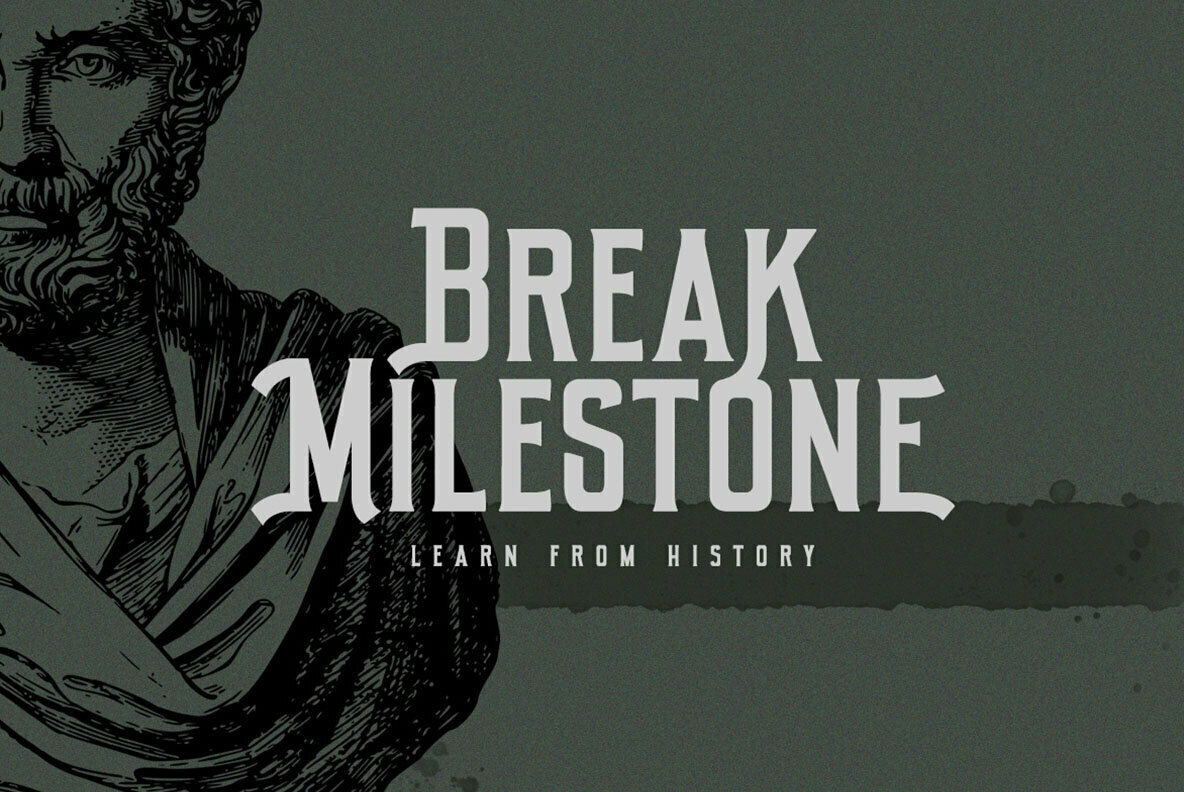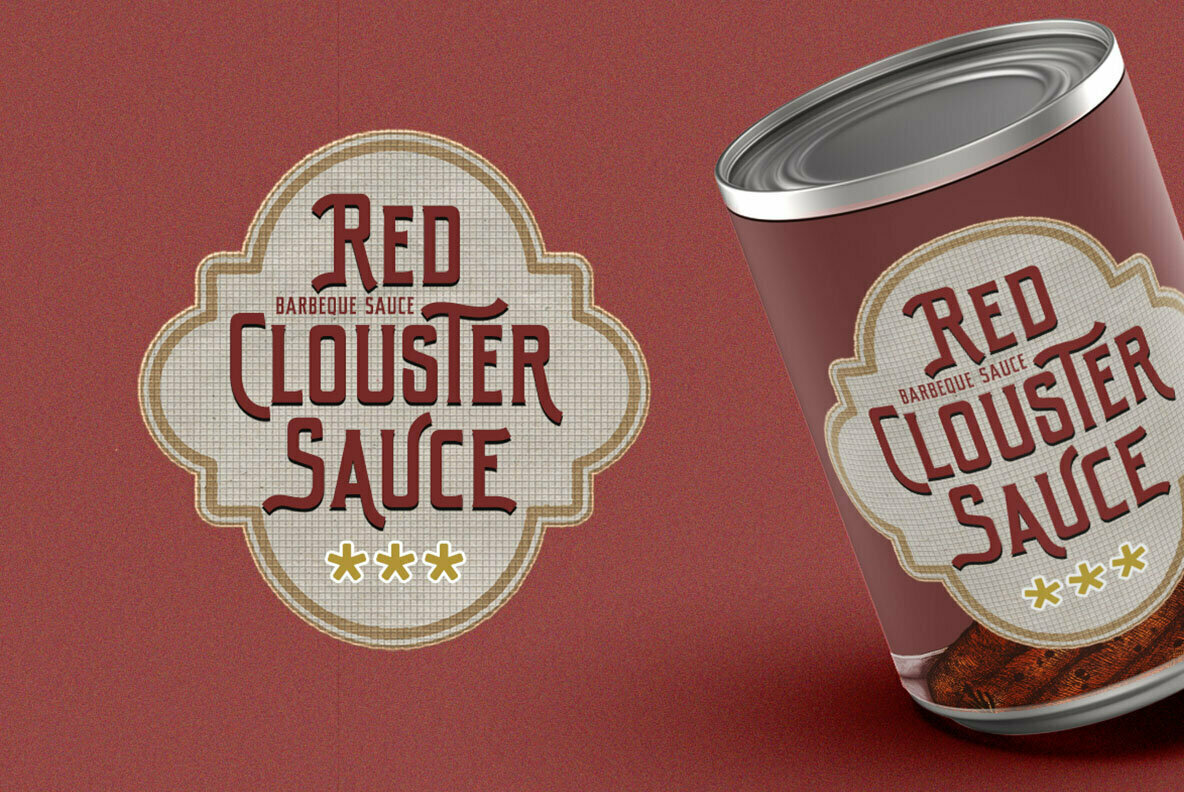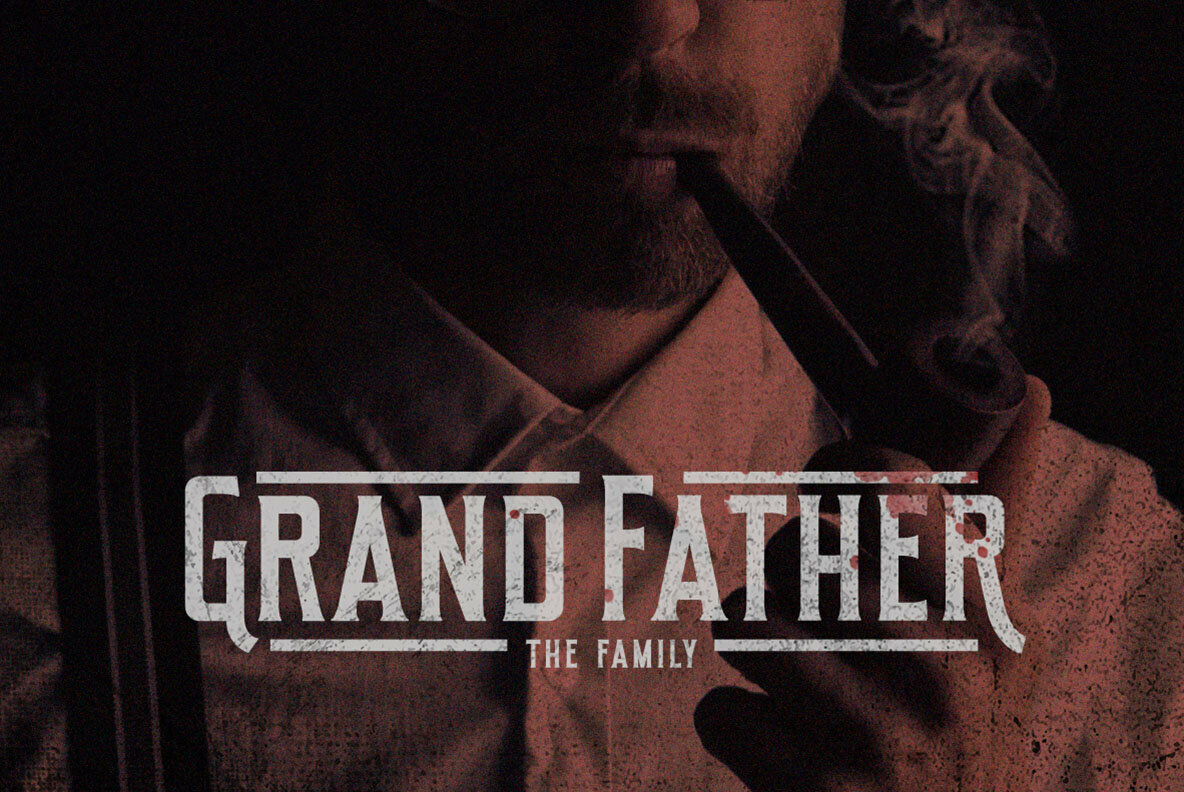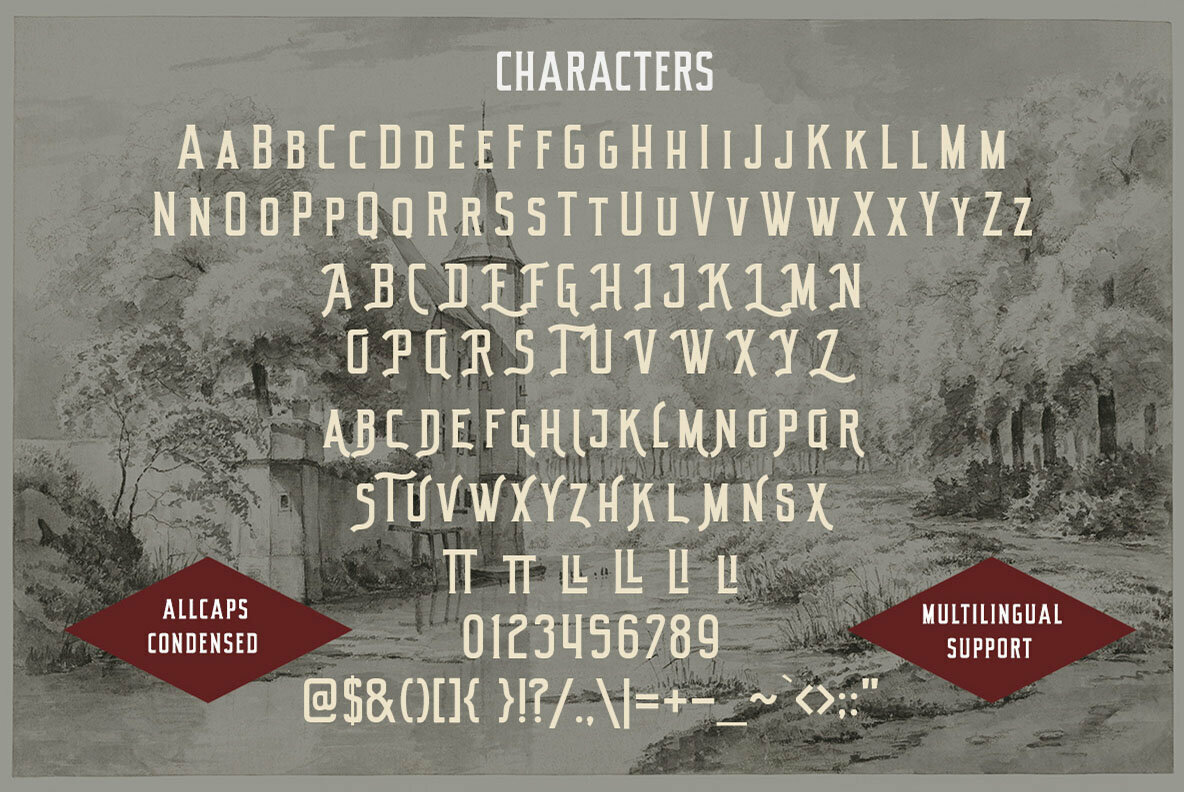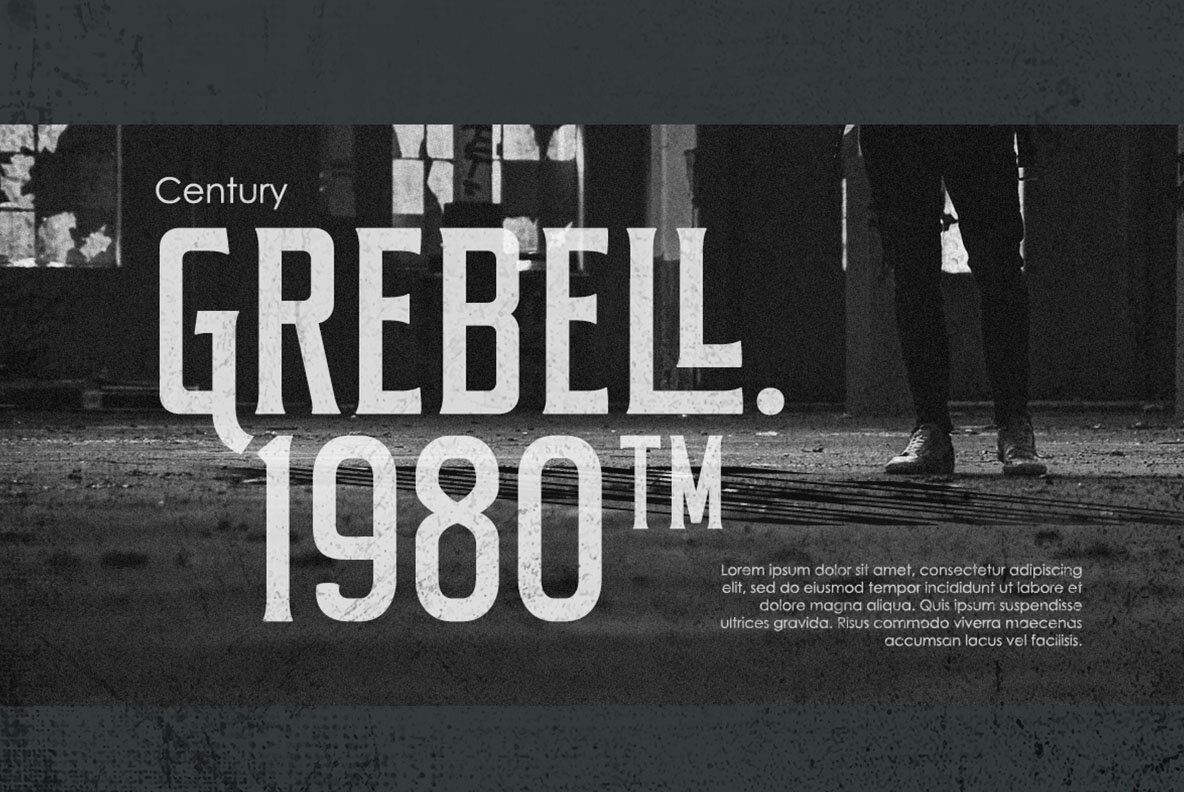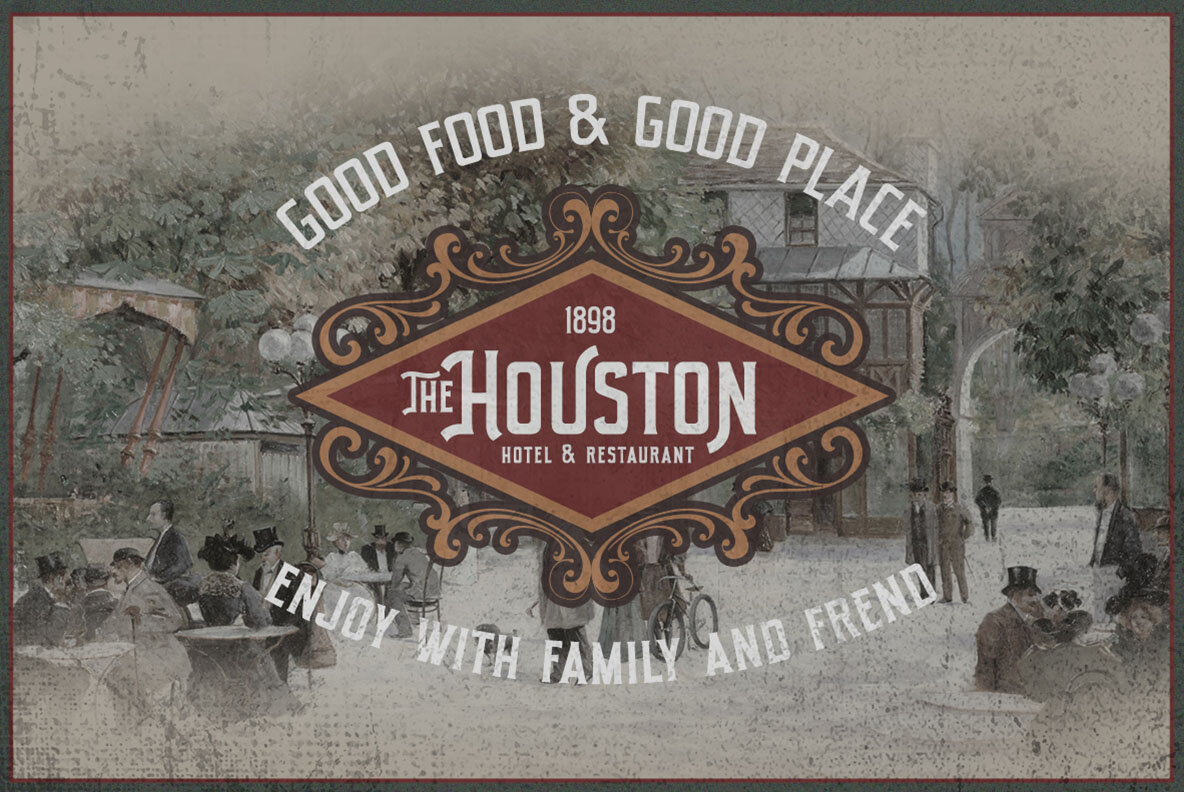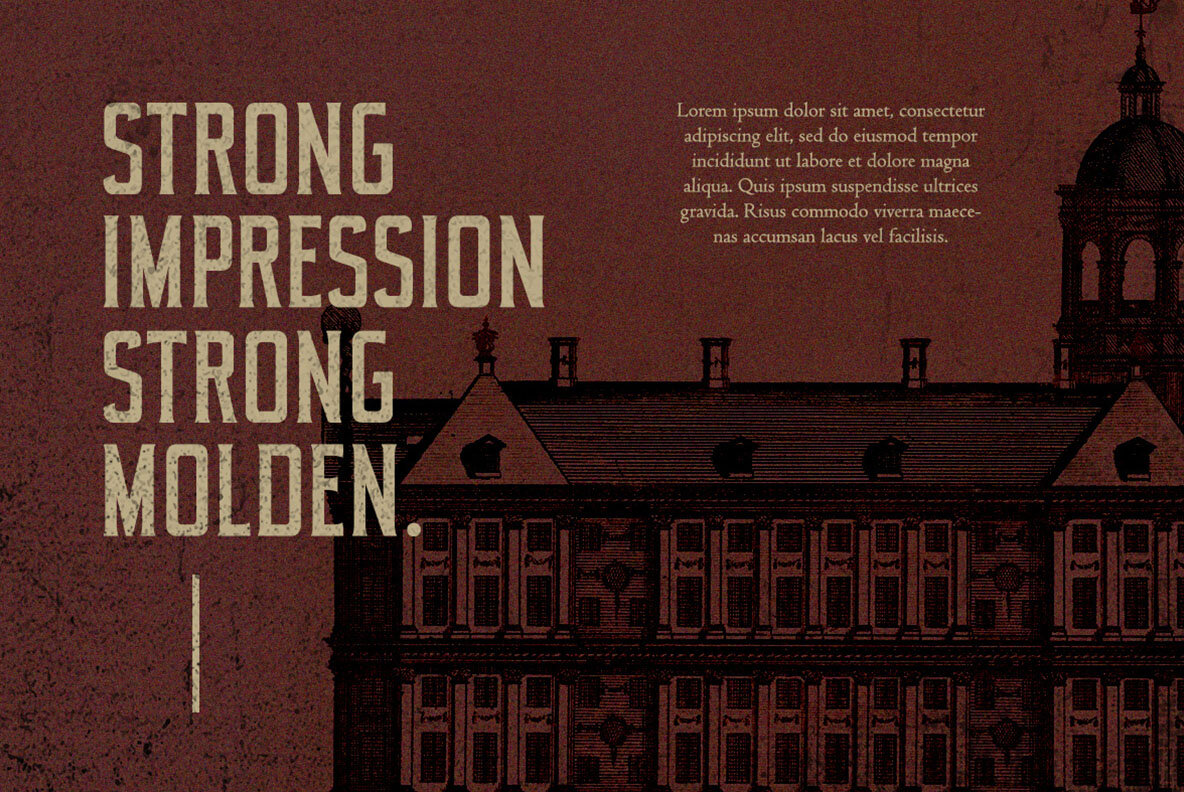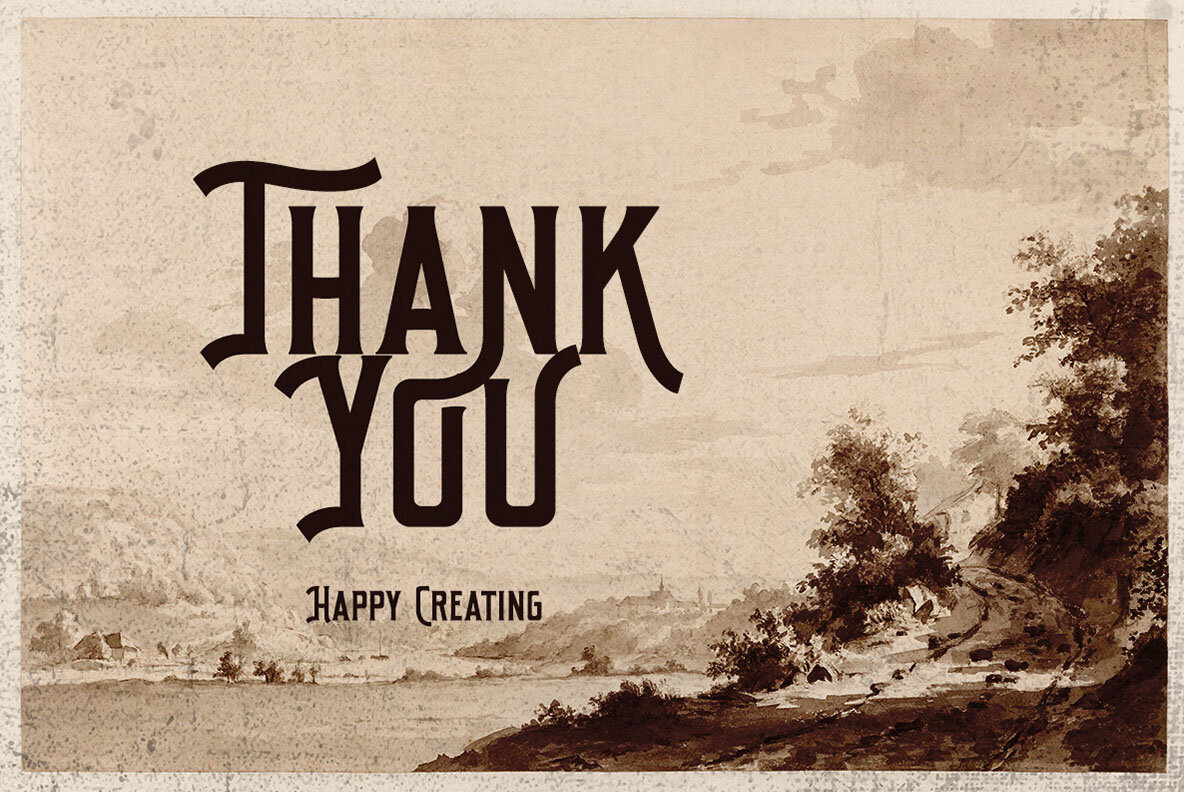
Rosterine Font
Rosterine Regular
Rosterine presents itself as a condensed display typeface characterized by a nostalgic and vintage allure. This typeface, defined by its unique appearance and strong characters, lends itself perfectly to logos and a variety of formal applications. Whether adorning wedding invitations, labels, magazine covers, or book titles, Rosterine seamlessly integrates into any design that seeks a touch of elegance and nostalgia. It's equally effective for advertising purposes, packaging, fashion products, and much more. Using a program that supports OpenType features, such as many Adobe applications or Corel Draw, is recommended to fully utilize Rosterine's comprehensive range of glyphs and stylistic options.Rosterine: A Nostalgic Condensed Display Typeface